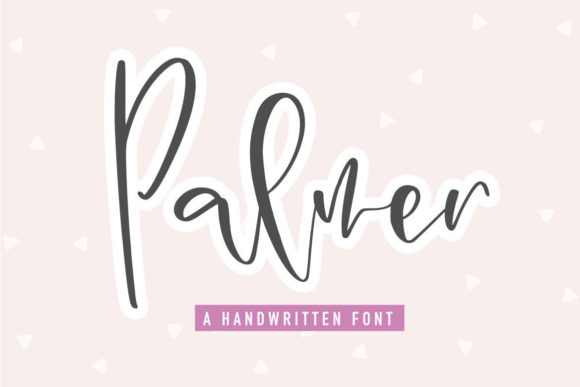
Unleash the Enchanting Serenity of Palmer Font: A Journey of Timeless Elegance
In a world clamoring for authenticity and distinction, Palmer Font emerges as a beacon of refined beauty, inviting you to embrace the captivating allure of handwritten artistry. Its graceful strokes and elegant curves are a testament to the enduring power of timeless design, beckoning you to elevate your creative expressions to new heights of sophistication.
Palmer's inherent charm lies in its ability to weave a tapestry of emotions, from the soft whispers of love to the heartfelt gratitude of handwritten notes. Whether you're crafting wedding invitations that exude timeless elegance, thank-you cards that convey your sincerest appreciation, or quotes that resonate with profound meaning, Palmer's presence adds a touch of heartfelt authenticity that transcends mere words.
The versatility of Palmer Font is a testament to its enduring appeal. Its delicate yet confident strokes lend themselves effortlessly to a myriad of design endeavors. From the understated beauty of logos and business cards to the playful charm of greeting cards, Palmer's presence adds a touch of grace and sophistication that captures attention and leaves a lasting impression.
For those seeking a font that embodies the essence of elegance and refinement, Palmer Font stands as an unrivaled choice. Its ability to imbue designs with a sense of timeless allure makes it the perfect companion for creatives seeking to make a lasting impact.
Join the Creative Revolution: Embrace the Timeless Beauty of Palmer Font
Let Palmer Font ignite your creative spirit and guide you on a journey of artistic exploration. Its versatility and emotional depth will unveil a world of endless possibilities, empowering you to create designs that resonate with authenticity and heartfelt charm.
Palmer Font is not just a collection of letters and symbols; it's an invitation to unlock the boundless potential of your imagination. Its graceful strokes and elegant curves will transform your creative endeavors into captivating masterpieces, leaving an indelible mark on the hearts of those who behold them.
So, embark on this creative odyssey with Palmer Font as your trusted companion. Let its timeless beauty inspire you to create designs that transcend the ordinary and embrace the extraordinary. The world of creativity awaits, and Palmer Font is your key to unlocking its limitless wonders.